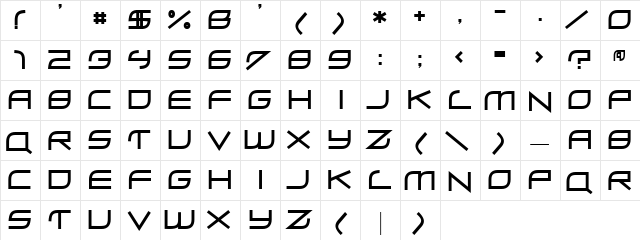
ZeroHour Regular
Design Context for ZeroHour Typeface
ZeroHour offers clean, dependable letterforms without strong stylistic allegiance, making it a practical choice for designers who need flexibility.
Pro Tip: Pair ZeroHour with a font of contrasting weight or personality to build a more expressive typographic hierarchy.